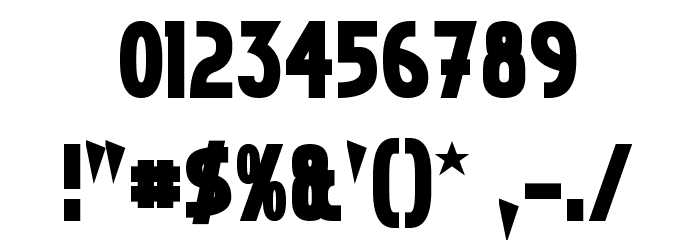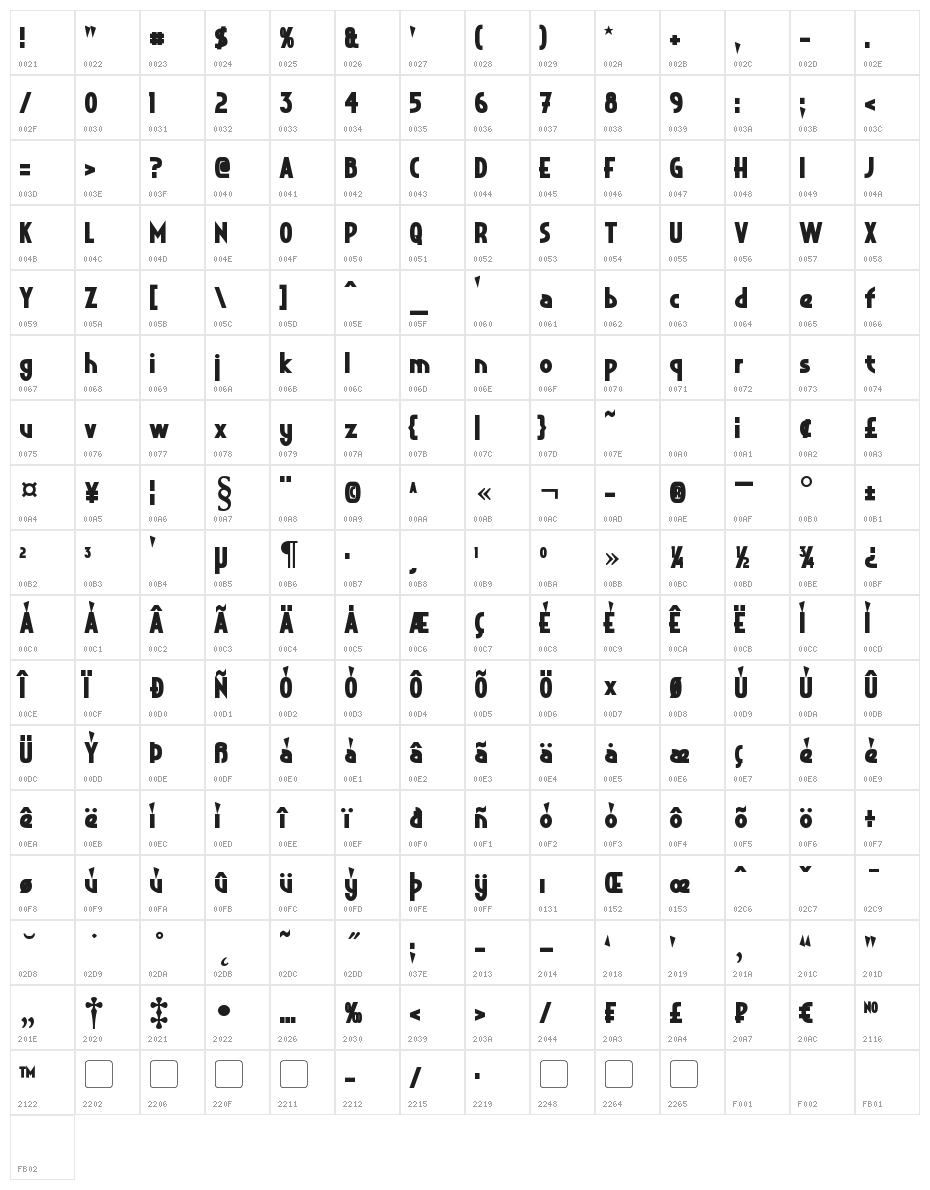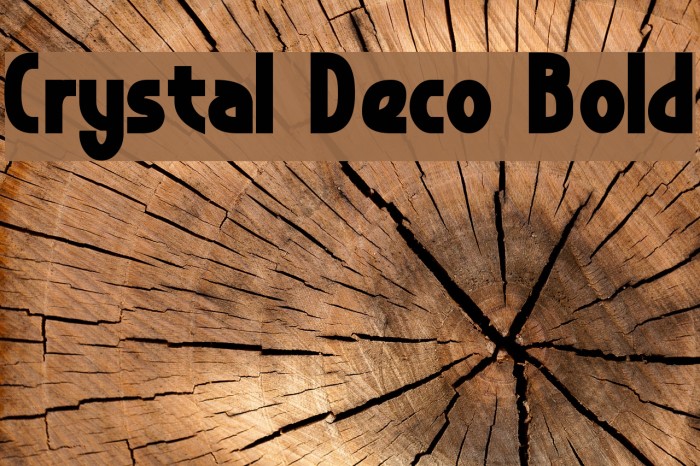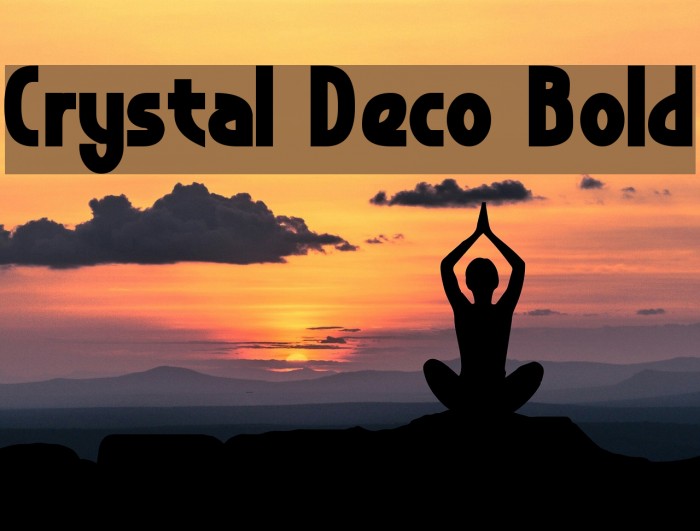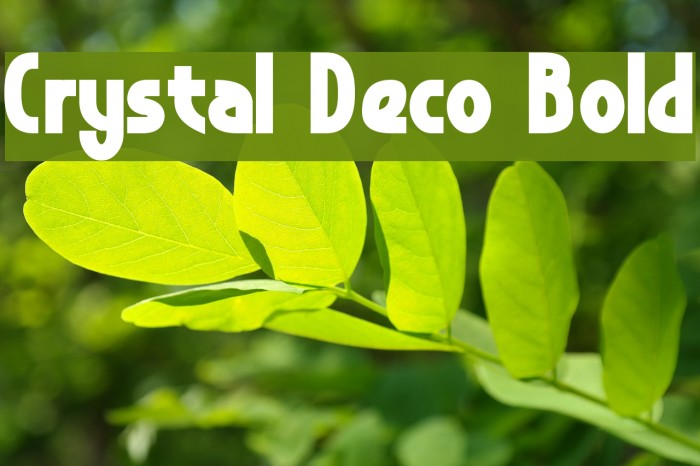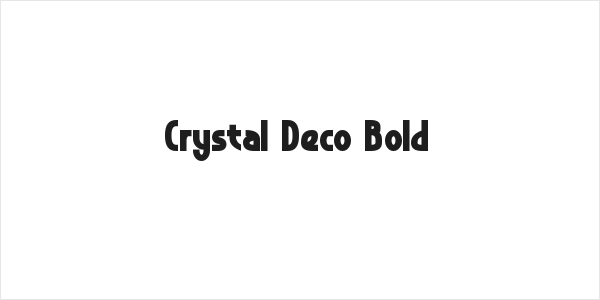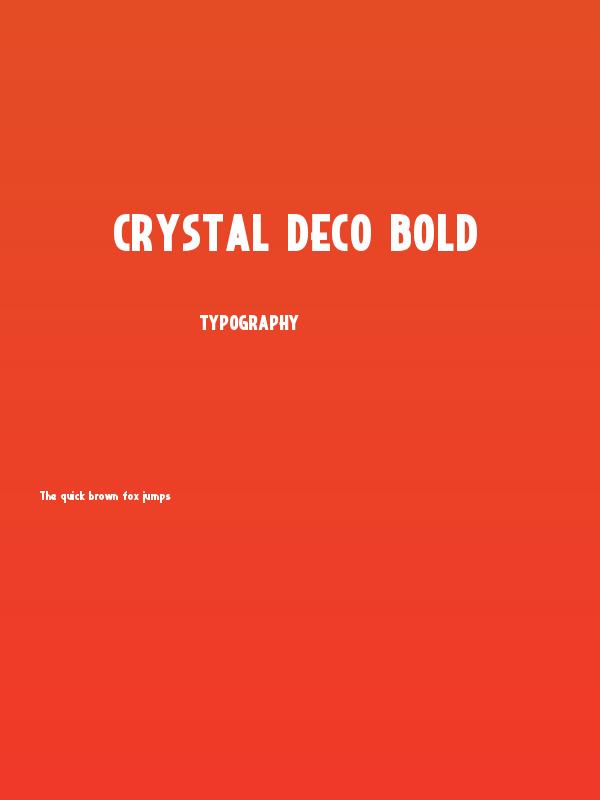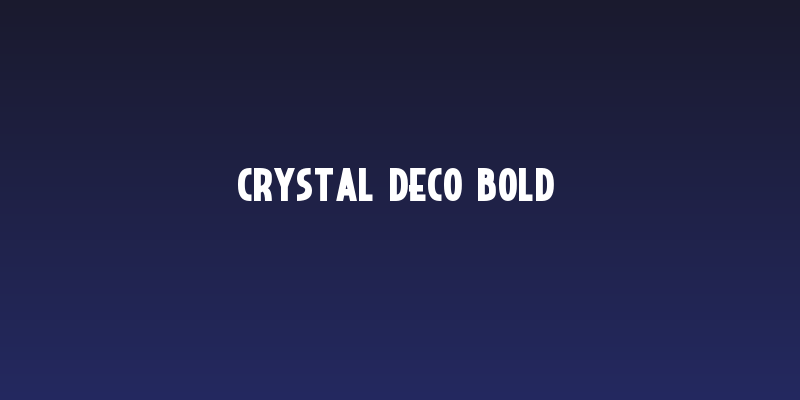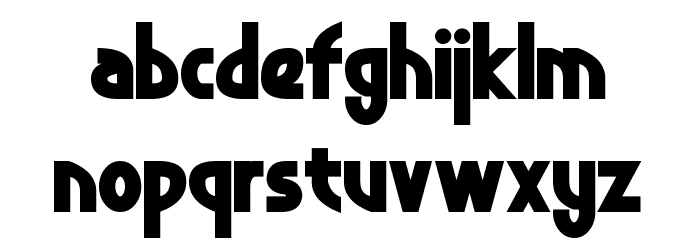
Crystal Deco Bold Font
Crystal Deco Bold Description
This font features a bold and striking design with a strong geometric influence, characterized by its thick, uniform strokes and angular shapes. The uppercase letters are particularly prominent, with a distinctive Art Deco flair that gives them a sense of elegance and sophistication. The lowercase letters maintain a consistent style, providing a cohesive look across the typeface. Numbers and special characters are designed with the same boldness and attention to detail, making them stand out effectively. The overall appearance is both modern and vintage, suitable for a variety of creative applications.
| Overall Style | Vintage, Modern |
| Proposed Projects | Ideal for branding, posters, headlines, and any project requiring a bold, vintage-modern aesthetic. |